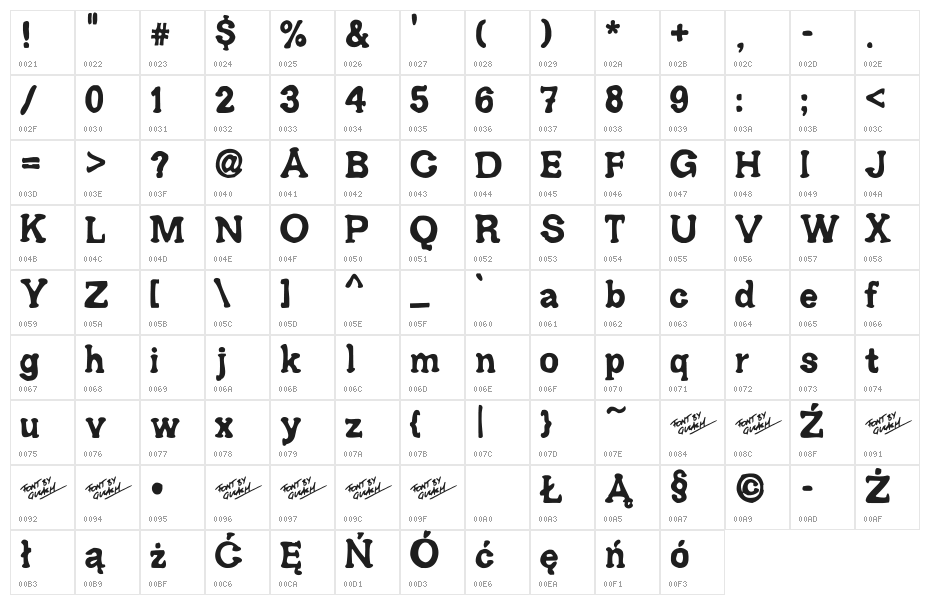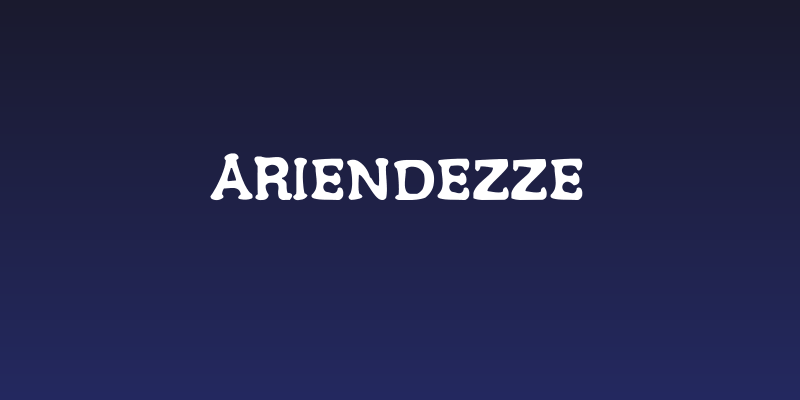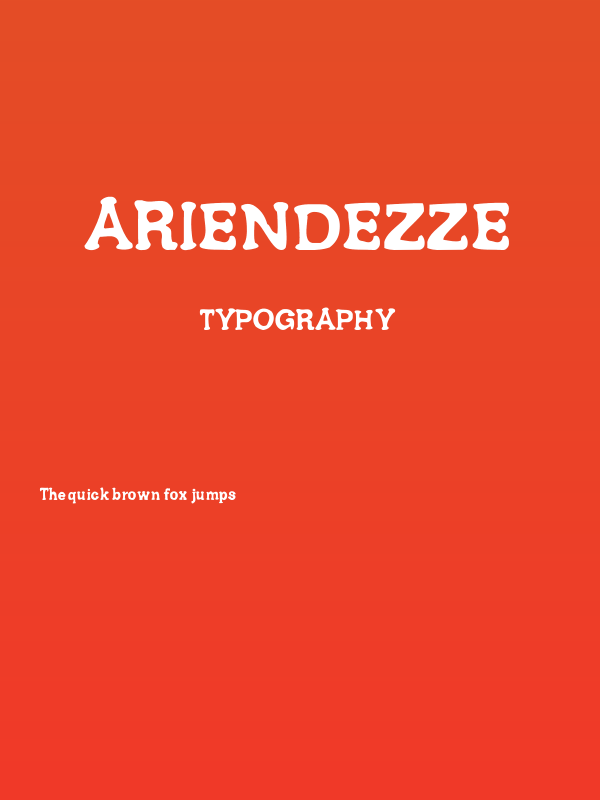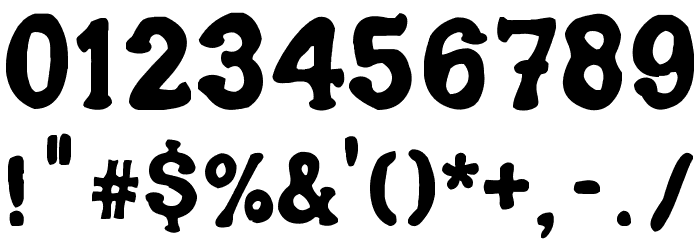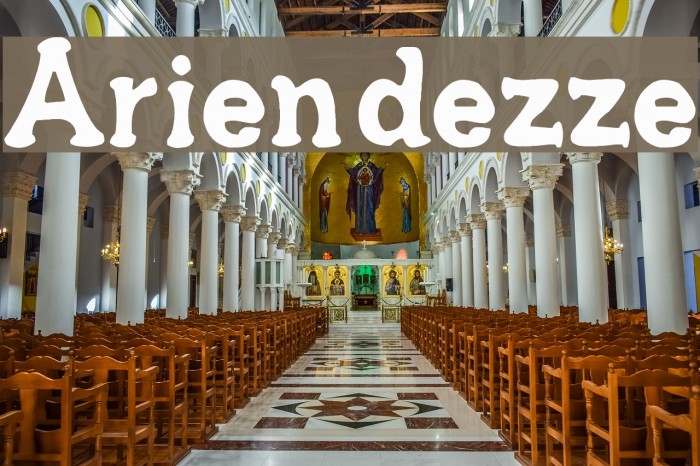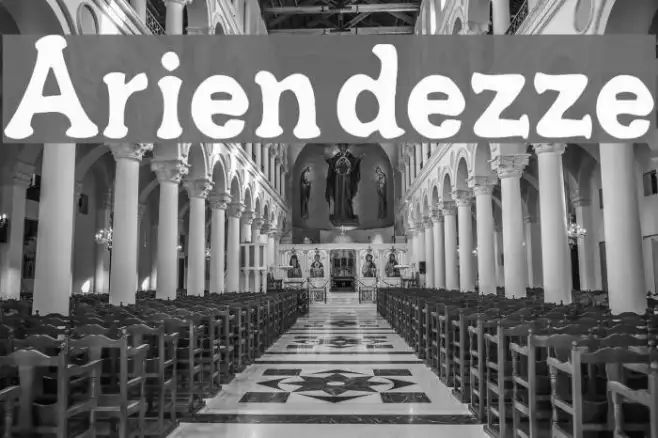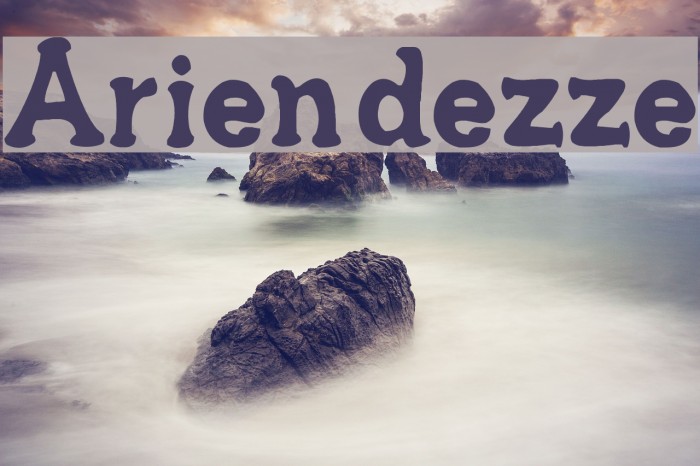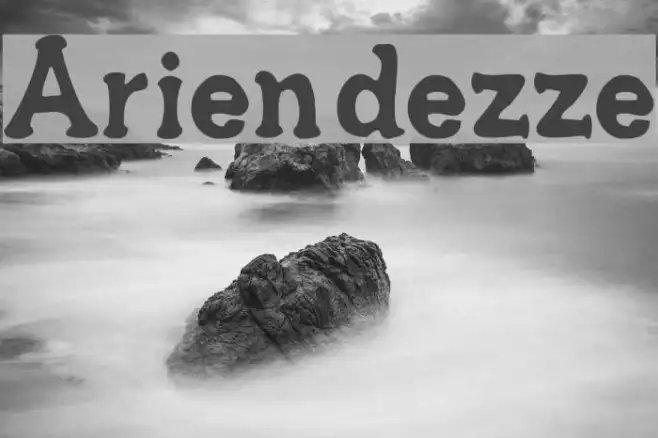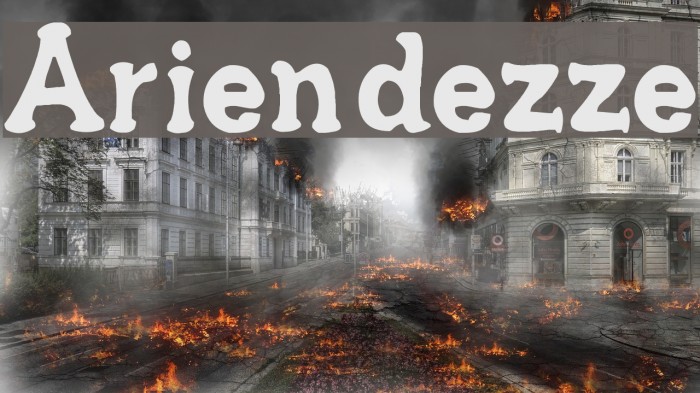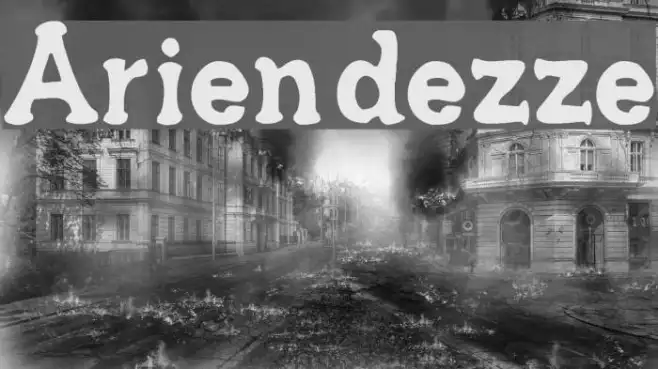
Ariendezze Font
Ariendezze Description
This font exhibits a bold and playful style with a distinctly rounded and slightly irregular form. The characters have a hand-drawn appearance, giving them a unique and artistic flair. The uppercase letters are robust and commanding, while the lowercase letters maintain a consistent weight, contributing to a cohesive look. The numbers are equally bold, ensuring readability and impact. Special characters are designed with the same playful and bold characteristics, making them stand out. The overall style is both whimsical and approachable, suitable for creative and informal applications.
| Proposed Projects | Ideal for children's books, playful branding, posters, and creative projects. |